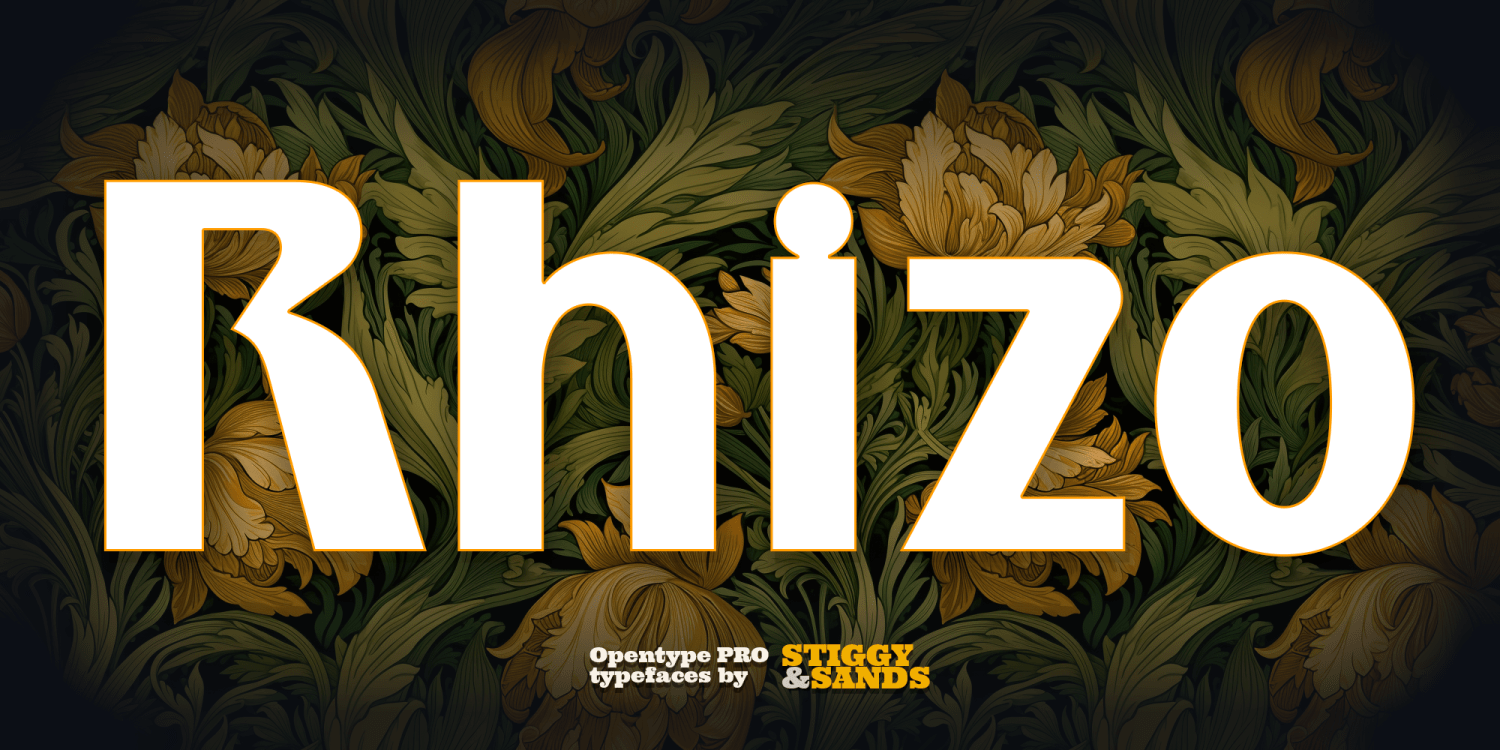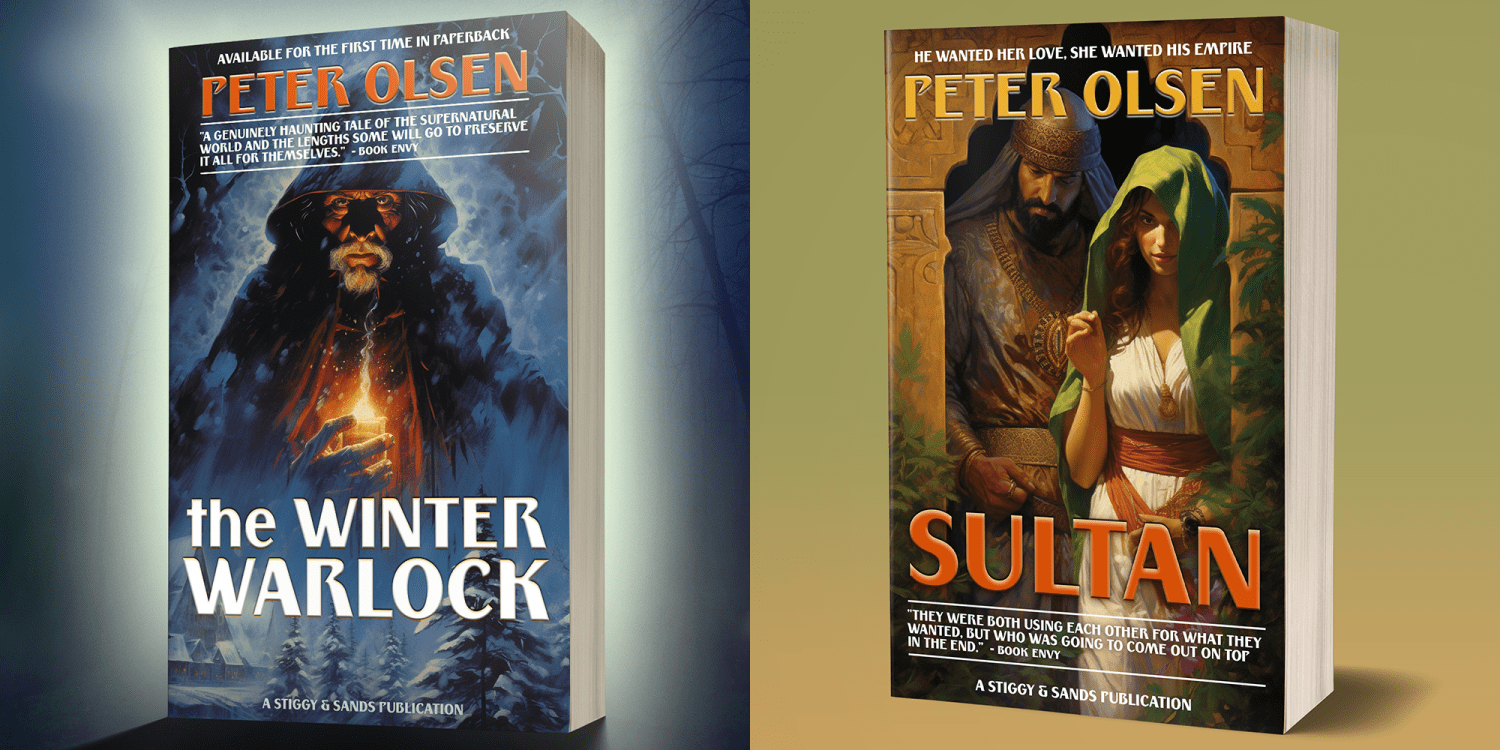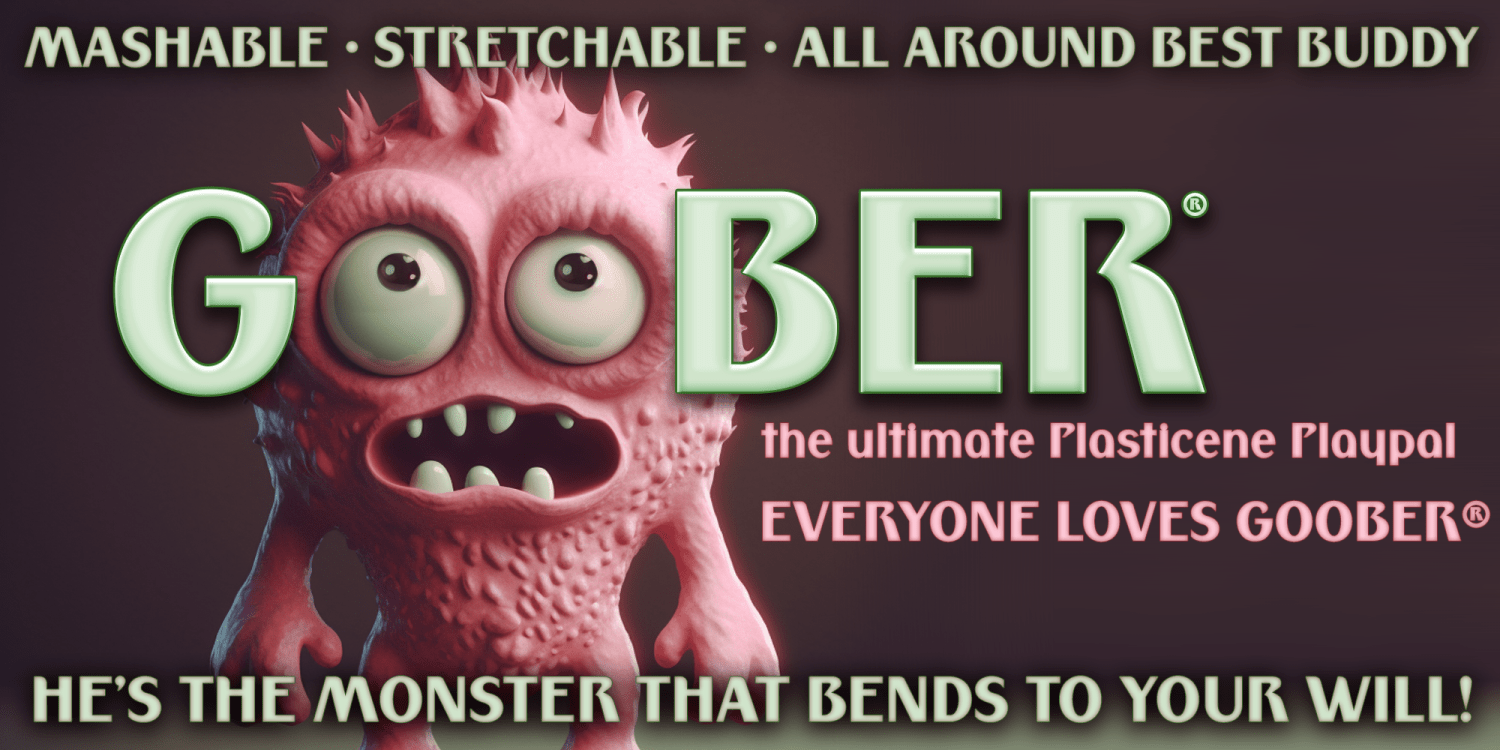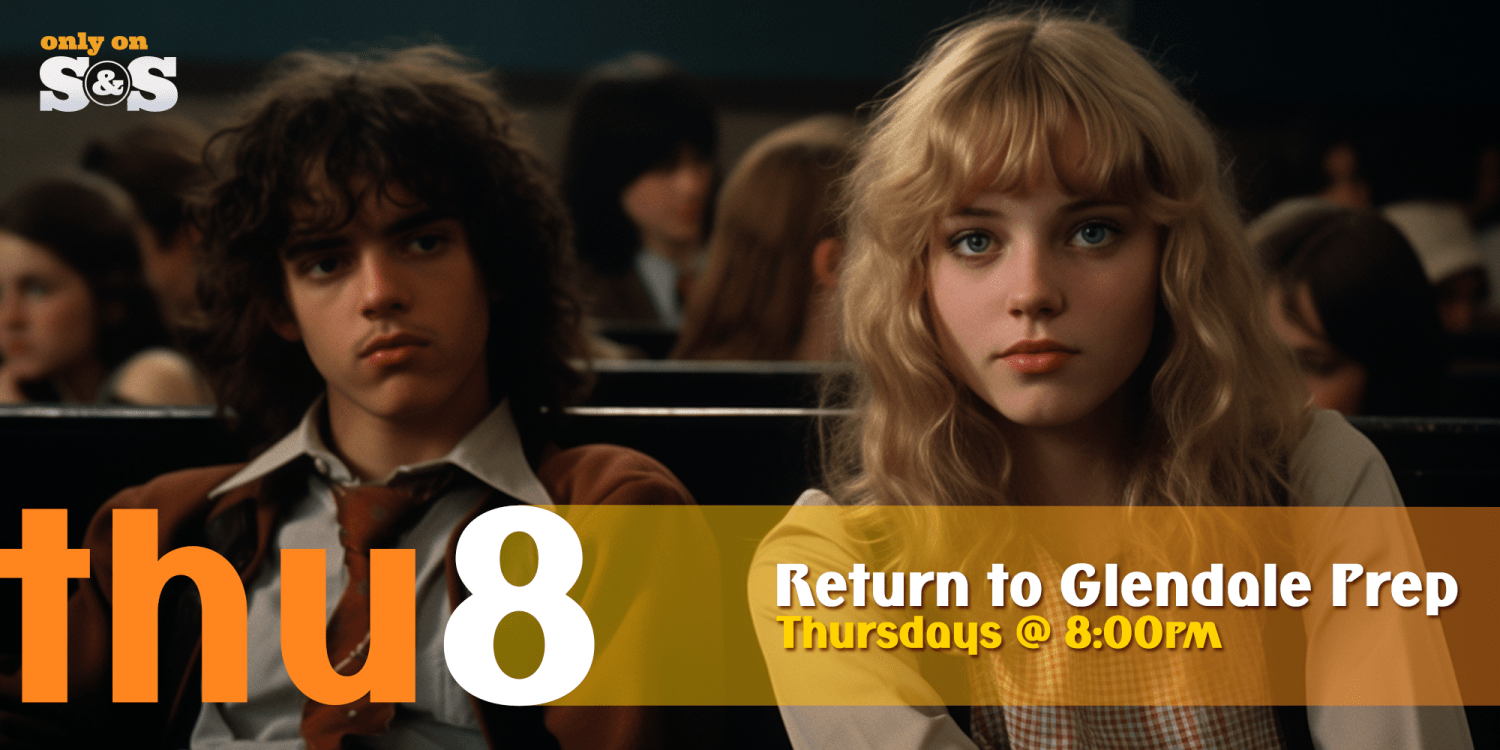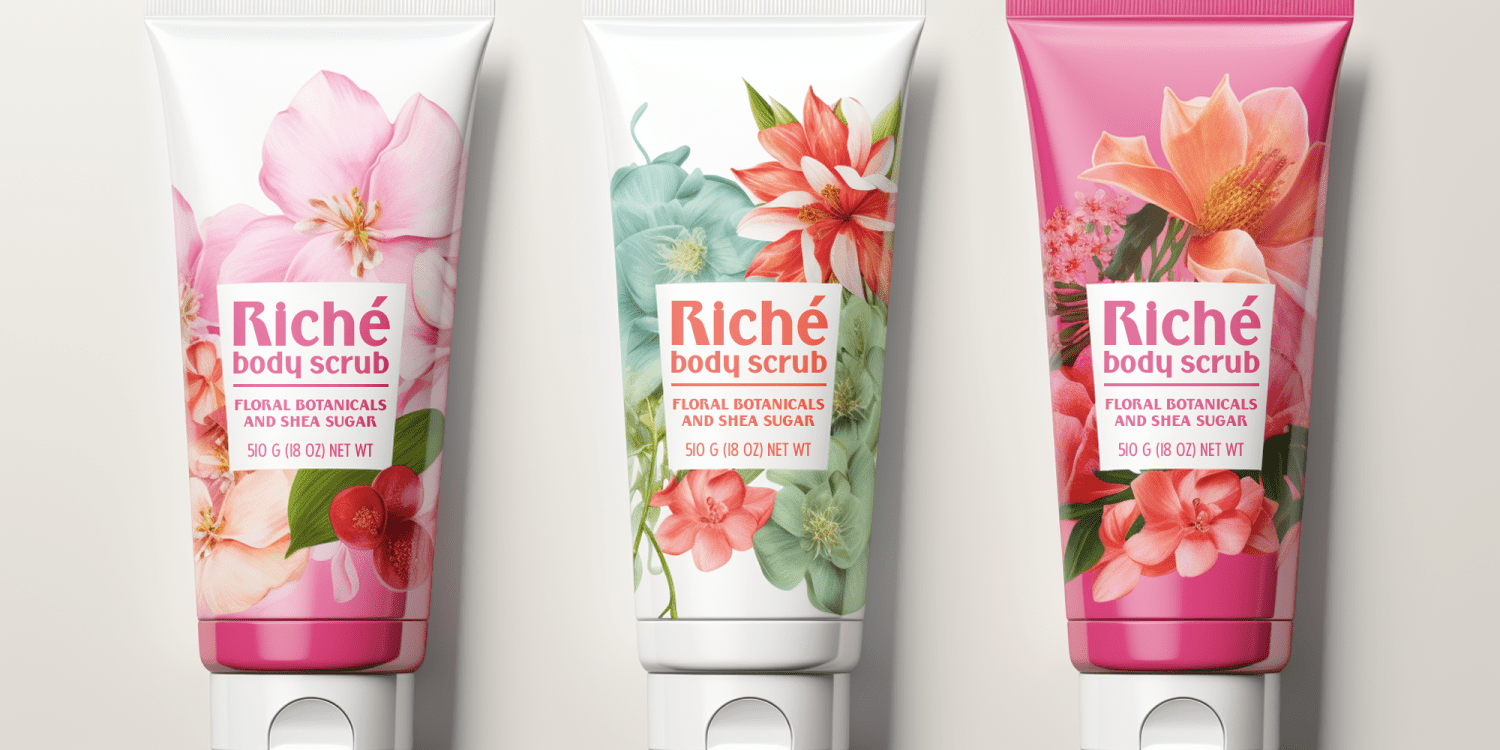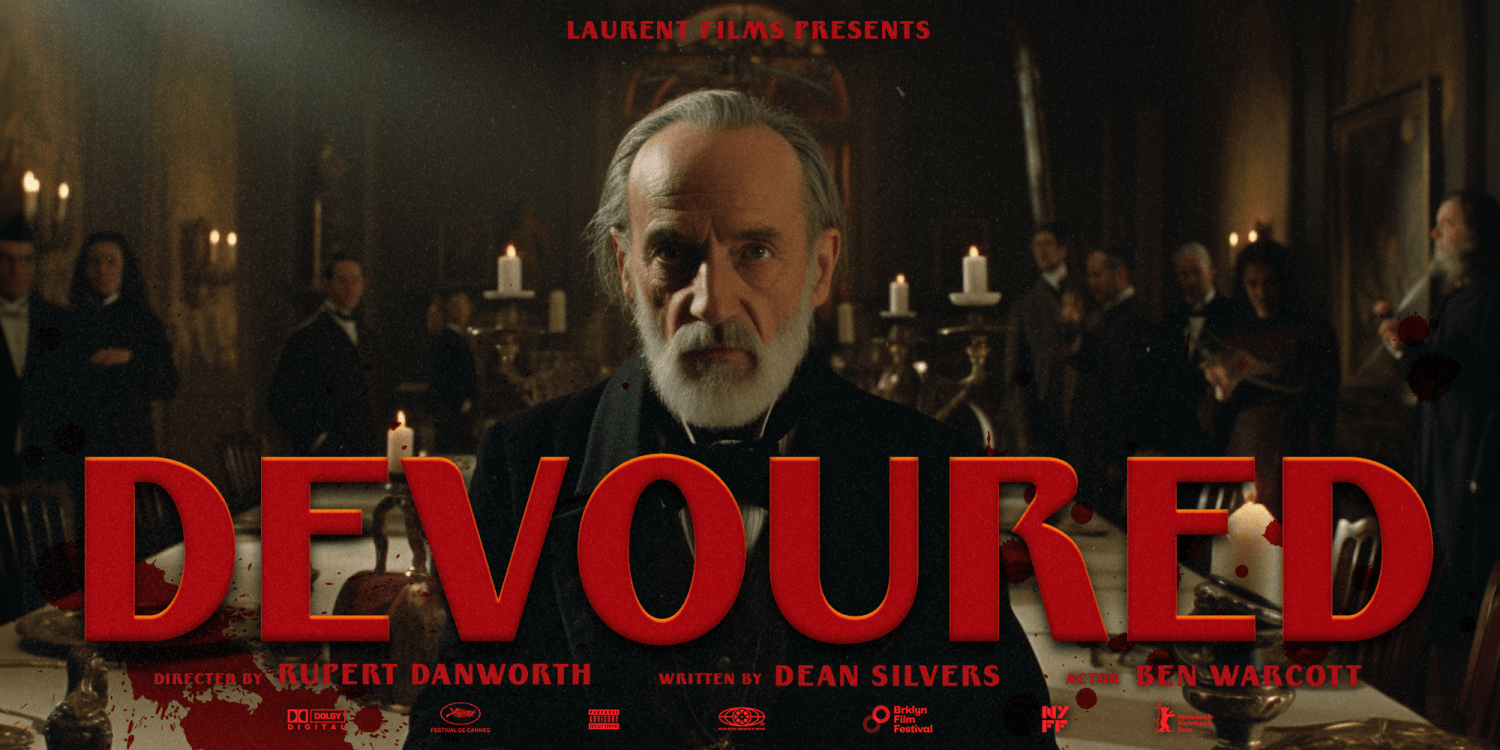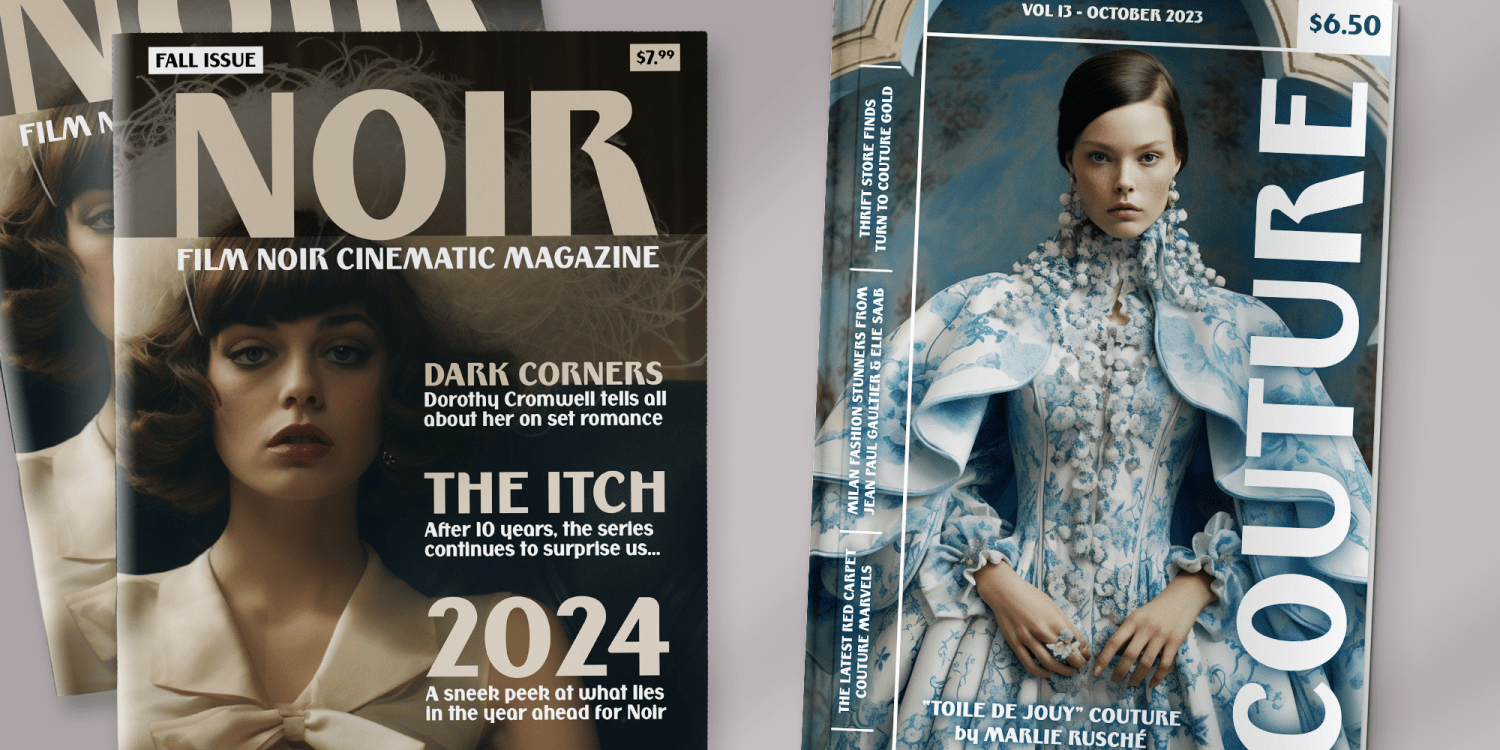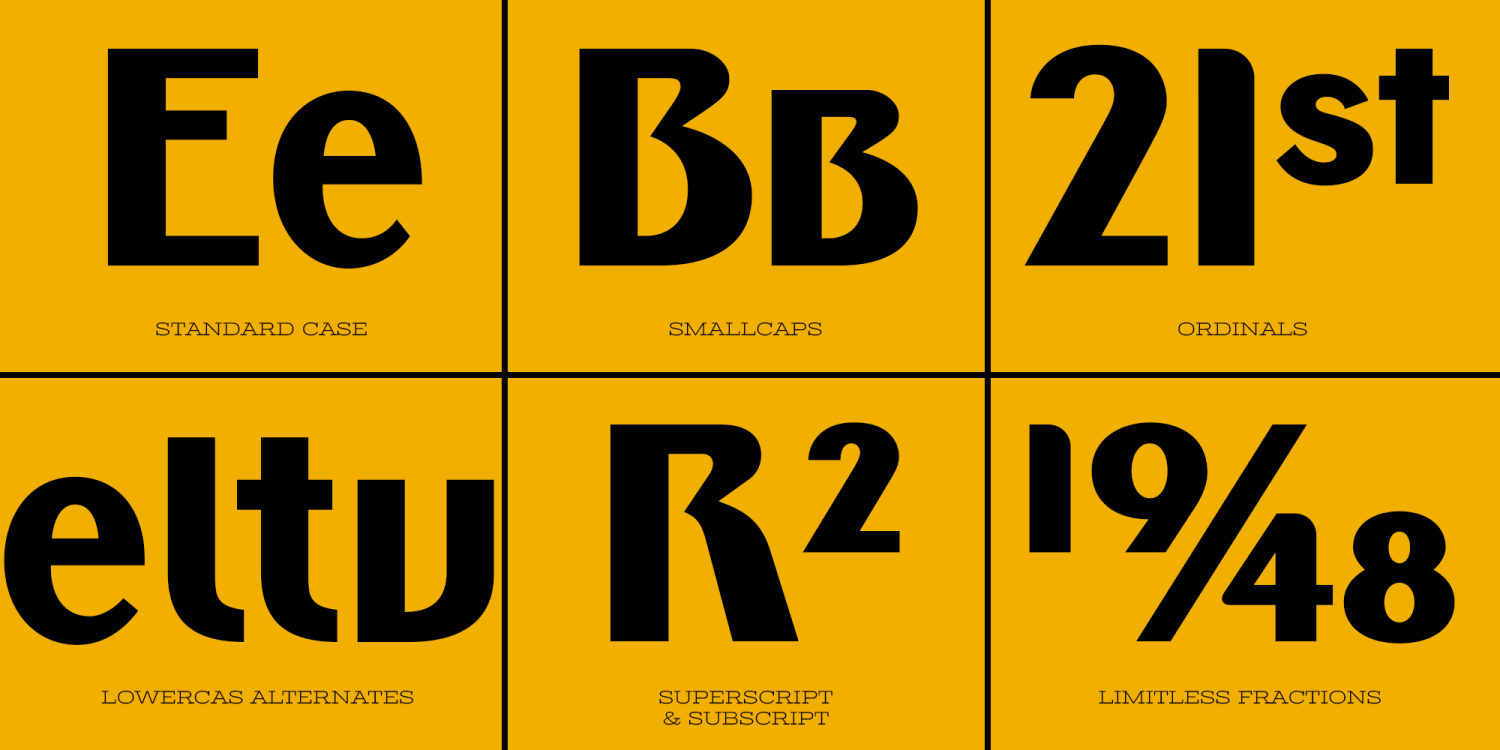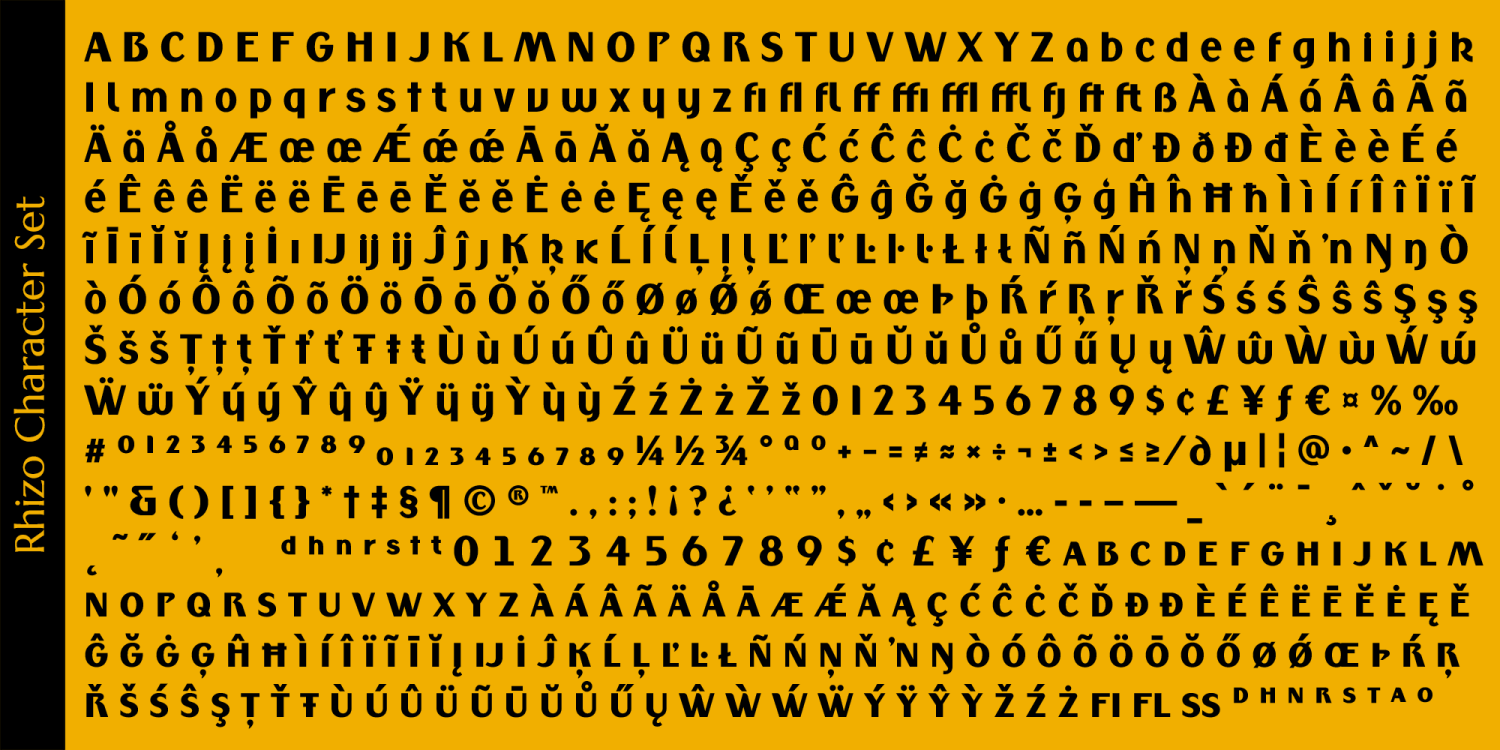
Rhizo
Font Family by Stiggy & Sands
The Rhizo font began as a digitization of a film typeface from LetterGraphics known simply as "Rodin". The original specimen included standard Capitals and Lowercase, Numerals and limited punctuation. We've fleshed out the original style to include alternates, ligatures and a full character set with all the trimmings. Stylish, gorgeous, a little dark, a little friendly...a variety of attitudes conveyed in this typeface.
Opentype features include:
Full set of Inferiors and Superiors for limitless fractions.
A collection of Standard Ligatures.
A small set of Stylistic Alternates Smallcaps
Approx. 592 Character Glyph Set: Rhizo comes with a glyphset that includes standard & punctuation, international language support, and additional features.